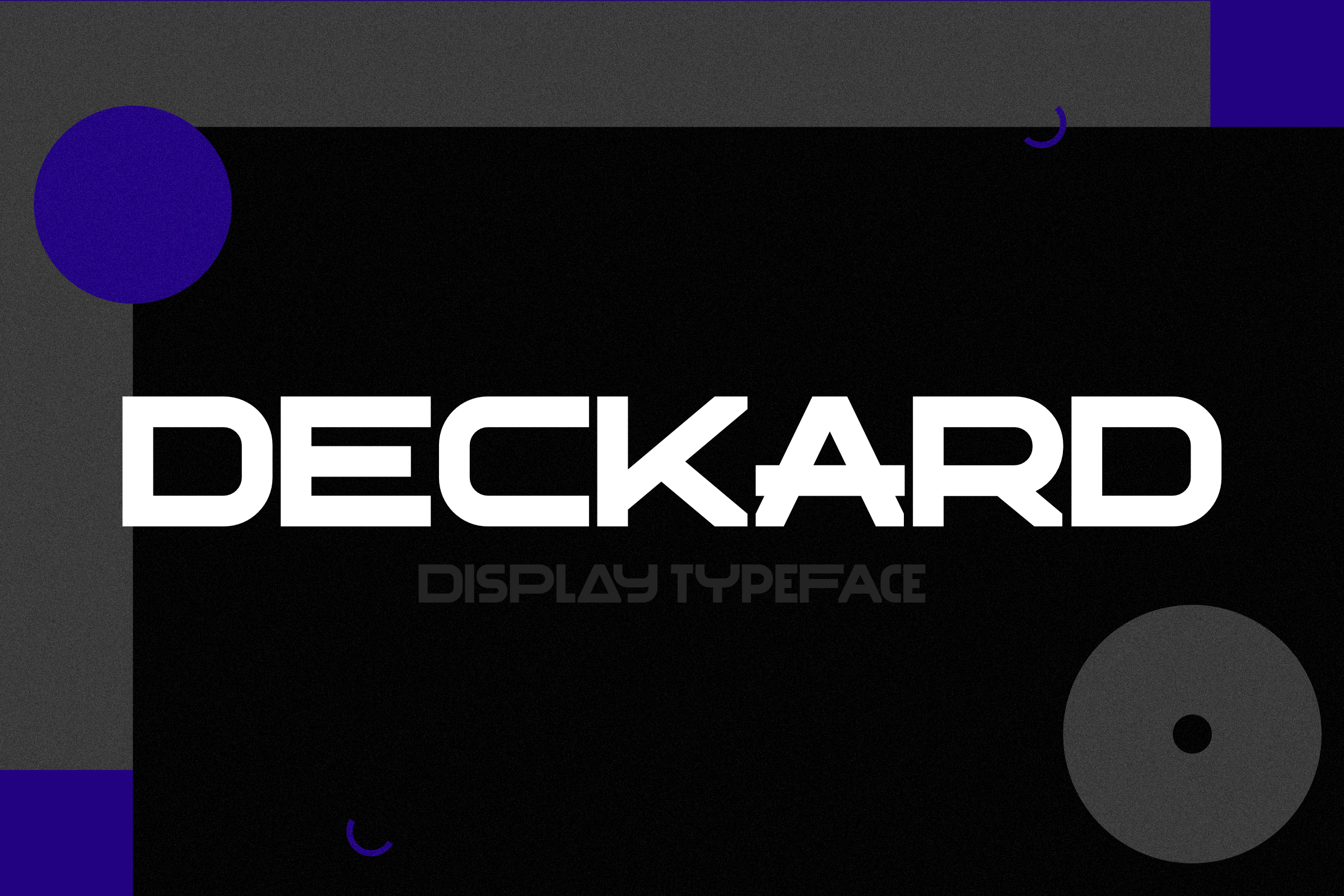
Deckard Typeface
Deckard is a futuristic display typeface with the potencial to produce some great visual results due to the different sizes and dynamics of the characters. It's best used for headlines, titles or sub-titles but it can also be used to whatever your creativity leads you.